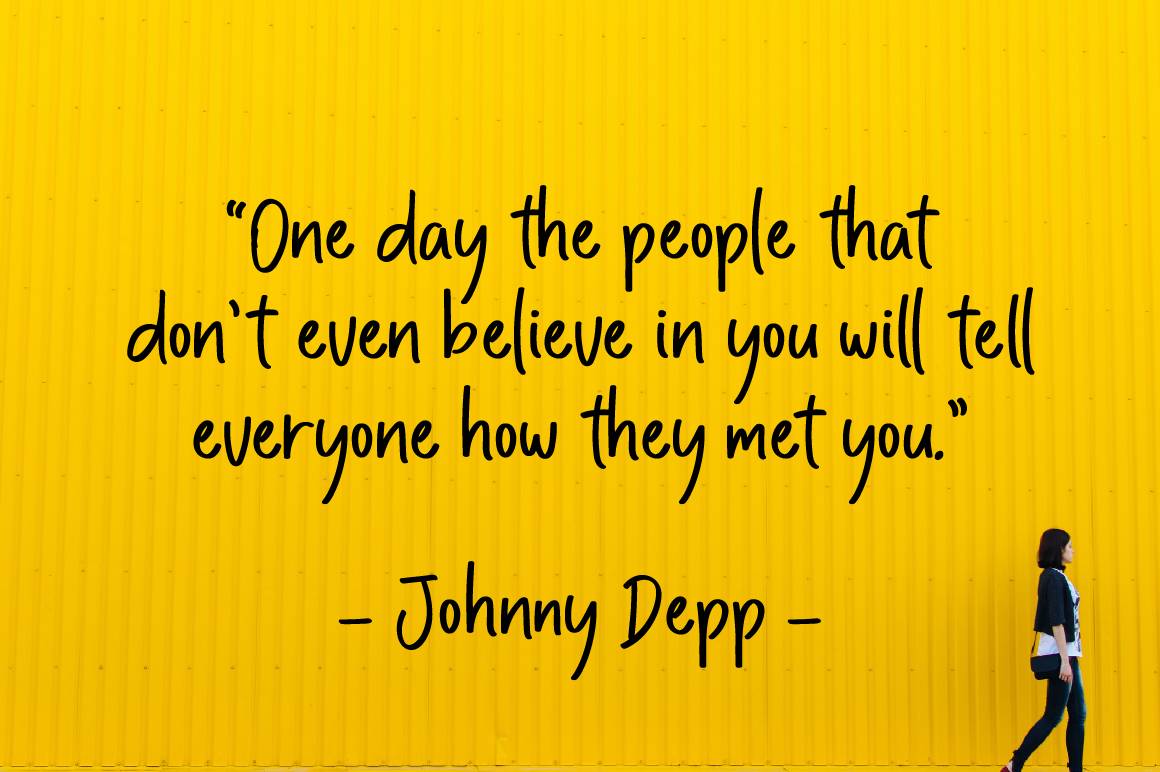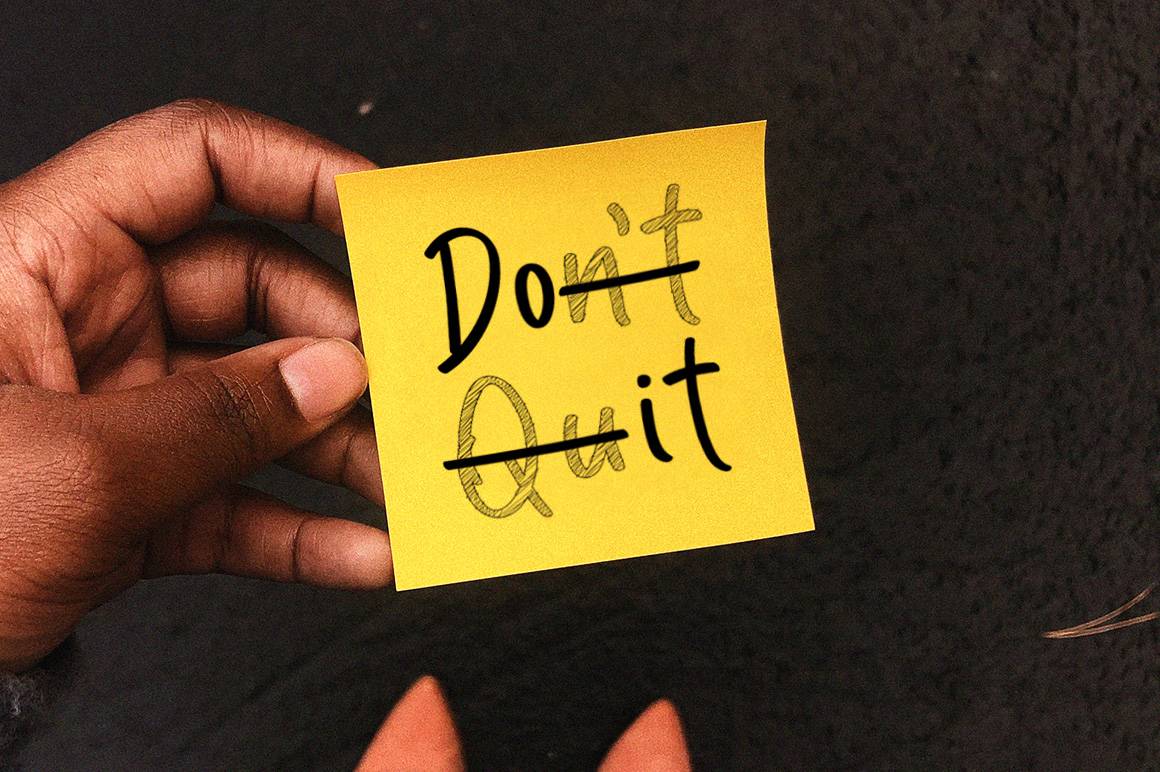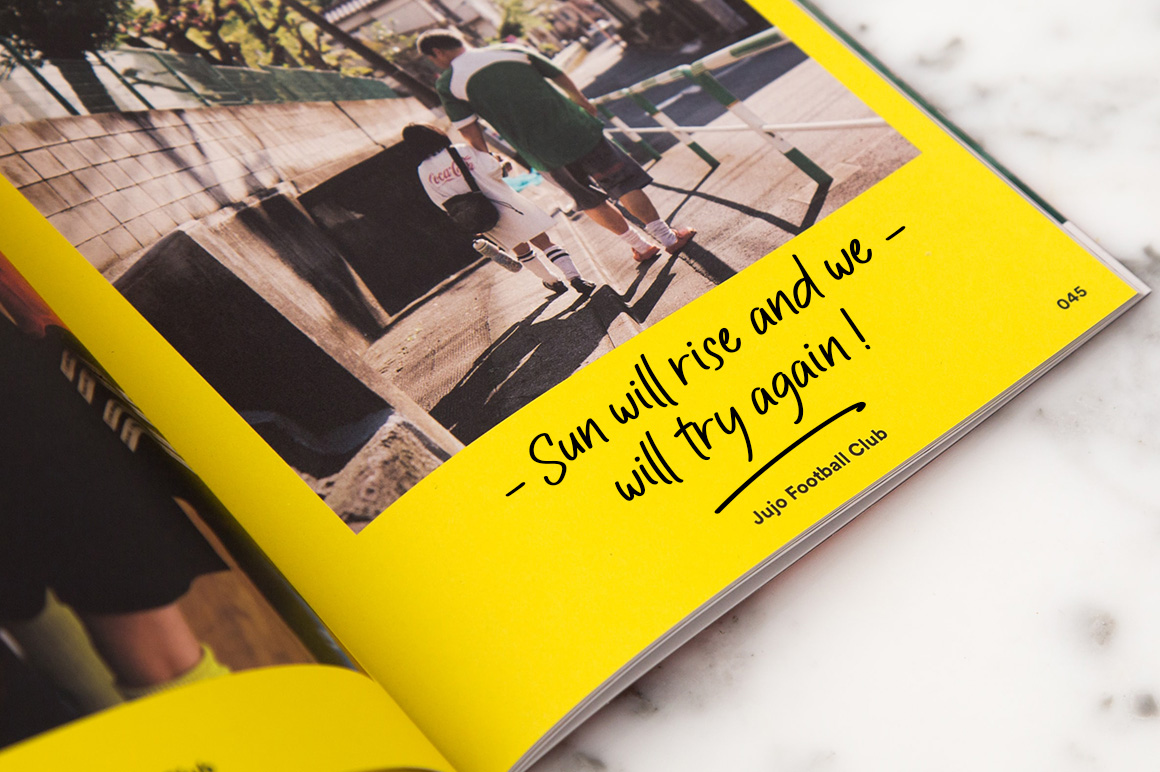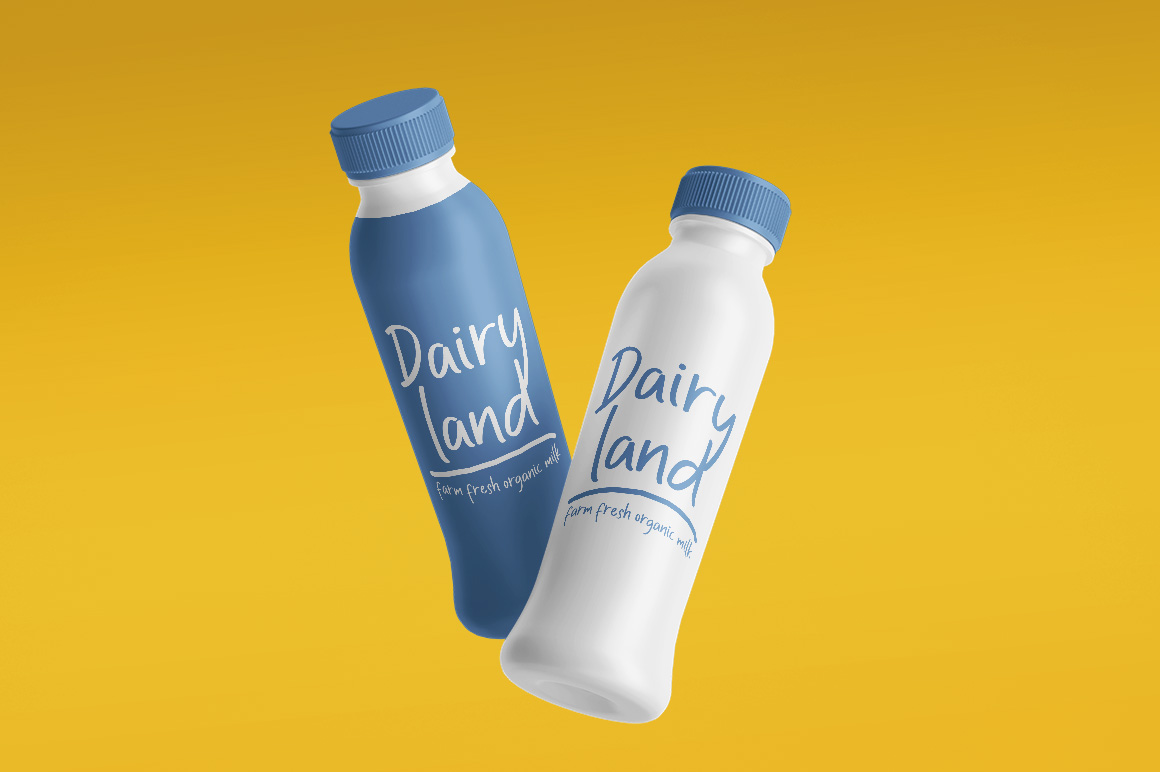
Bold Lining is a playful handwritten marker font that features tall, slightly narrow letterforms with a consistent, smooth stroke weight that mimics casual handwriting. Its clean, informal style and readable lowercase and uppercase characters make it ideal for creative, friendly designs such as invitations, social media graphics, or branding that seeks a personal, approachable vibe. This font works especially well for projects needing a human touch without sacrificing clarity and charm.
Bold Lining Handwritten Marker Font
About Bold Lining Handwritten Marker Font
| Font family | Bold Lining Handwritten Marker Font |
| Designer | Typesthetic Studio - Hamzah Muhamad Ihsan - Jakarta (INA) |